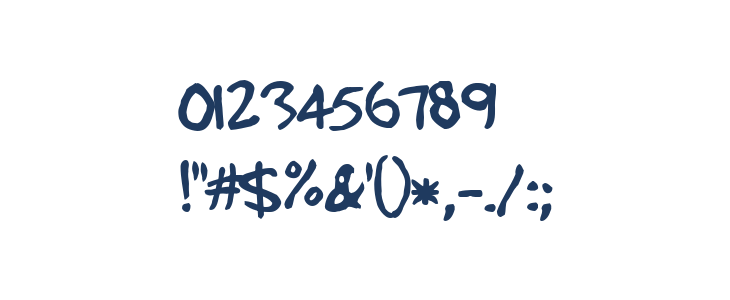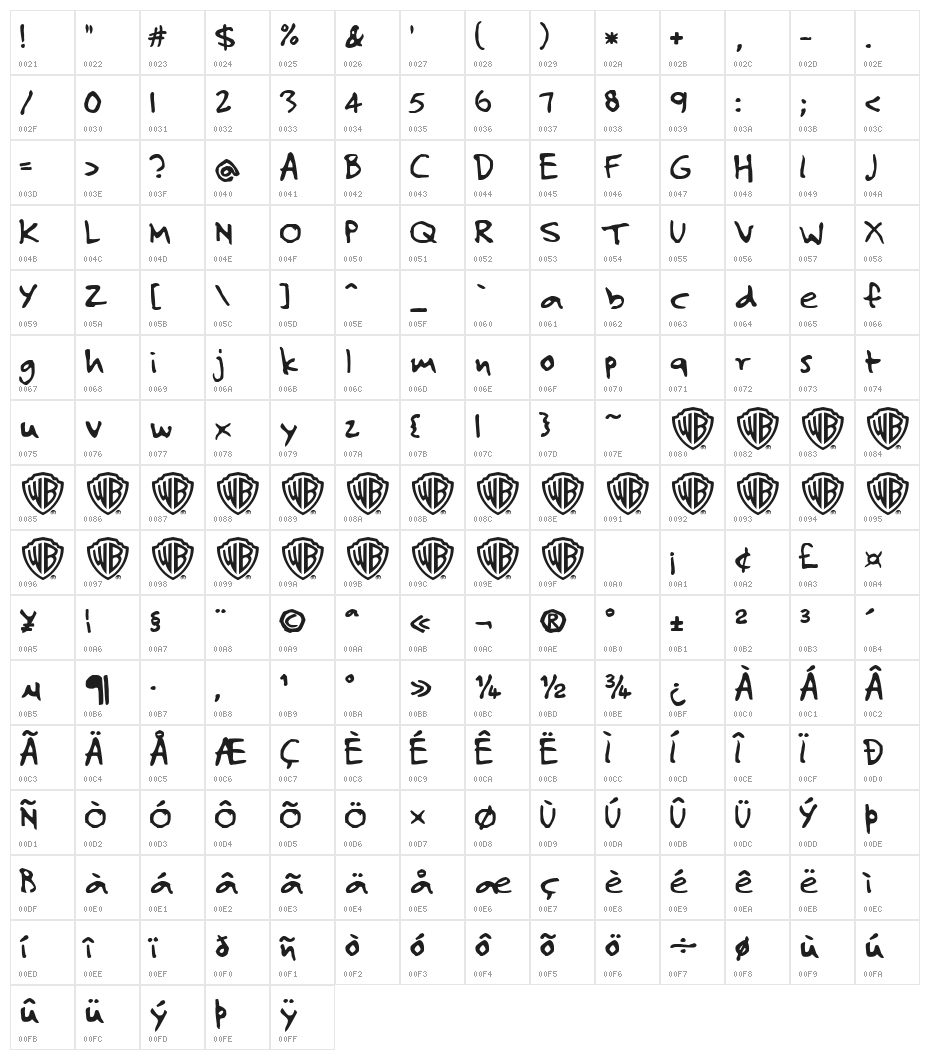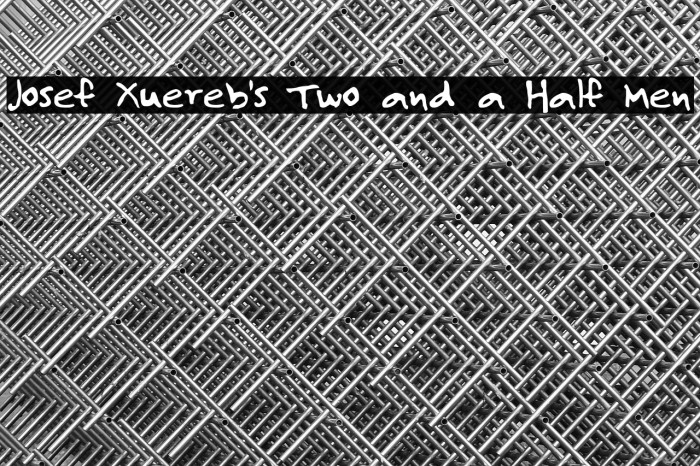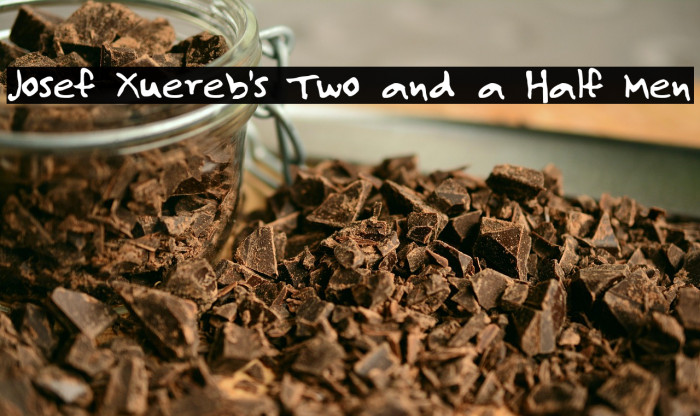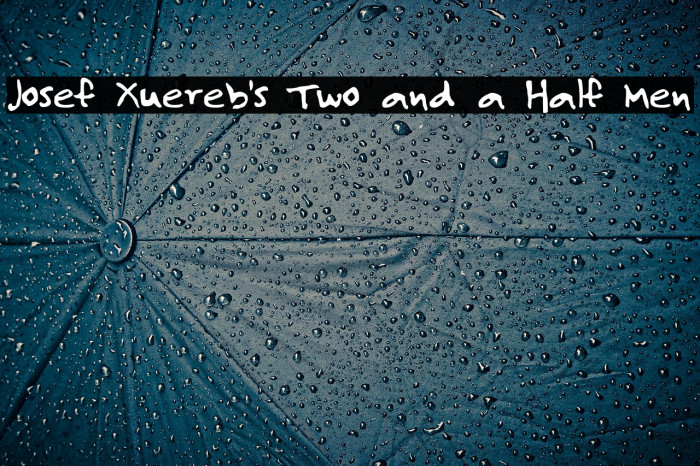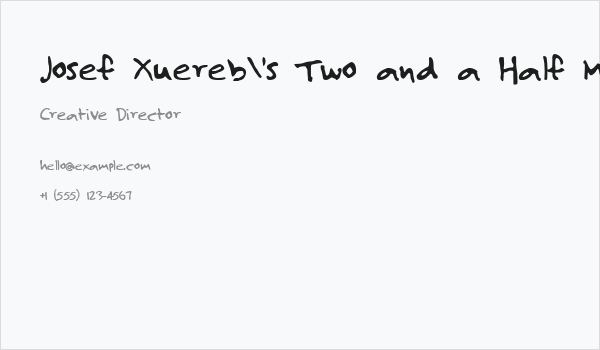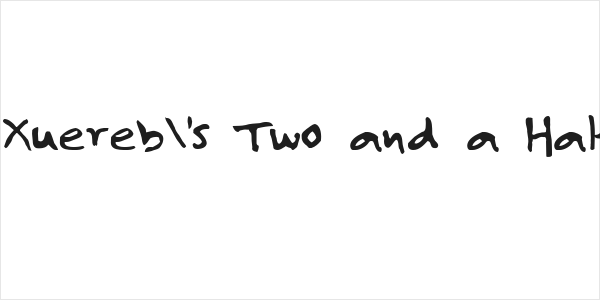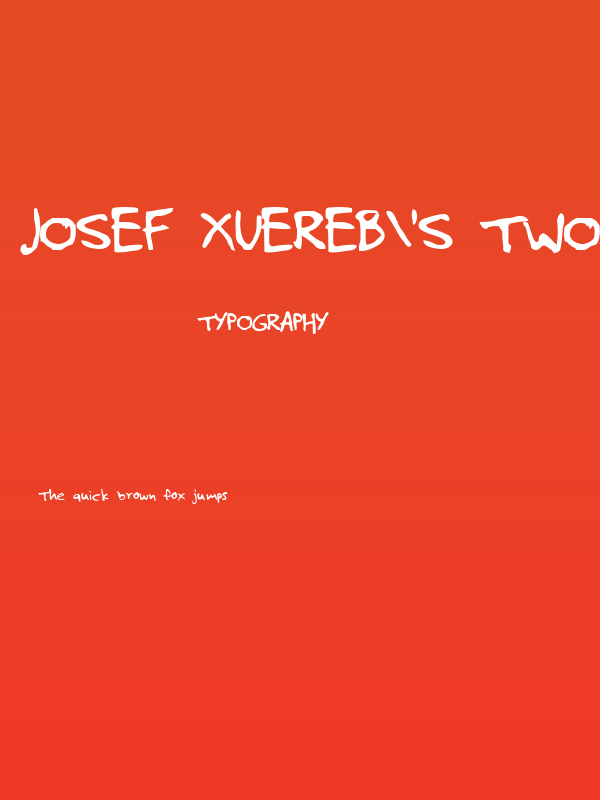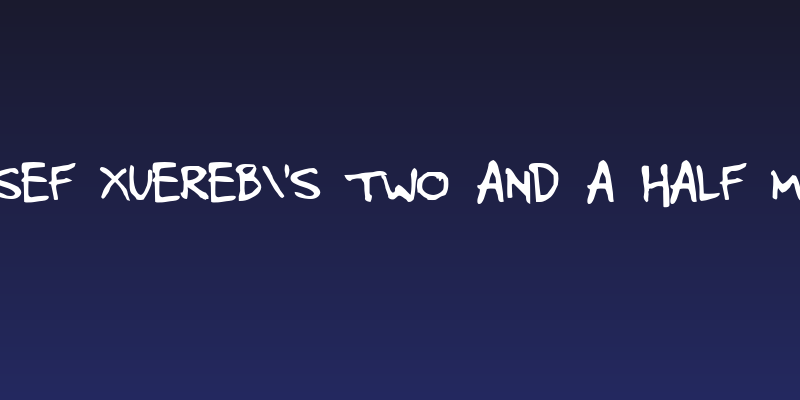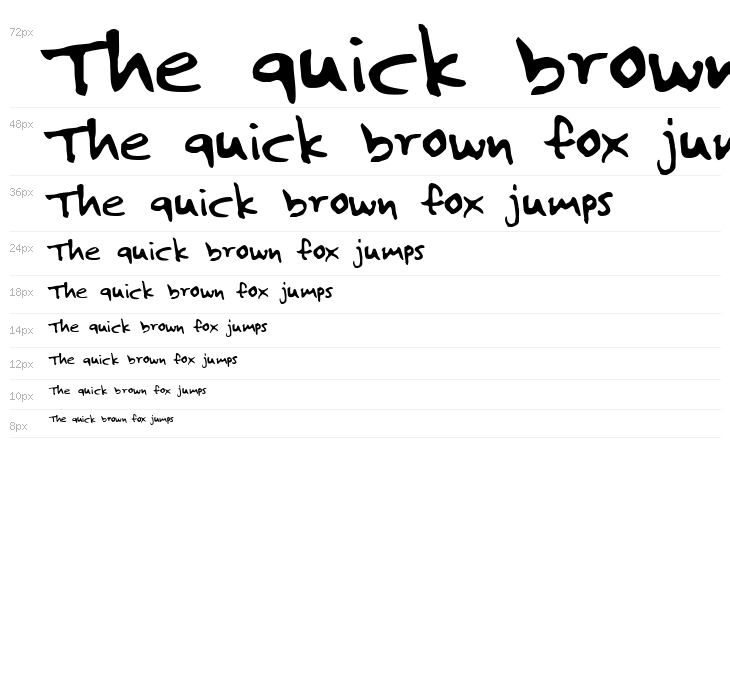
Josef Xuereb's Two and a Half Men Font
Josef Xuereb's Two and a Half Men Description
This font exhibits a playful and casual handwritten style, characterized by its irregular strokes and organic flow. The letters are bold and slightly uneven, giving a sense of spontaneity and informality. The uppercase and lowercase letters maintain a consistent style, with rounded edges and varying stroke widths that add to its dynamic appearance. Numbers and special characters are equally expressive, matching the overall whimsical aesthetic. This font is ideal for projects that require a personal touch or a relaxed, approachable vibe.
| Use Case | Logos, Headlines, Informal Text |
| Proposed Projects | Ideal for greeting cards, children's books, casual branding, and social media graphics. |